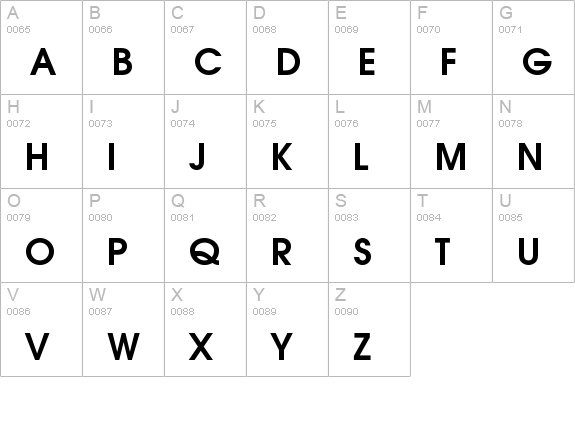
AvantGardEF-Demi Font Details
AvantGardEF-Demi is a sub-bold, structured variant in the AvantGardEF typeface family \xE2\x80\x94 well suited to sub-headlines and emphasised passages.
AvantGardEF-Demi is a bold and modern font that exudes sophistication and elegance. With its sleek lines and unique design, this font is perfect for making a statement in any project. The strong, yet refined look of AvantGardEF-Demi makes it ideal for use in branding, advertising, and editorial design. The best part is that AvantGardEF-Demi is available for free download at FontsMarket.com. This means that you can easily access this stunning font and use it in your projects without any cost. Don't miss out on the opportunity to elevate your designs with AvantGardEF-Demi - get your free download today!